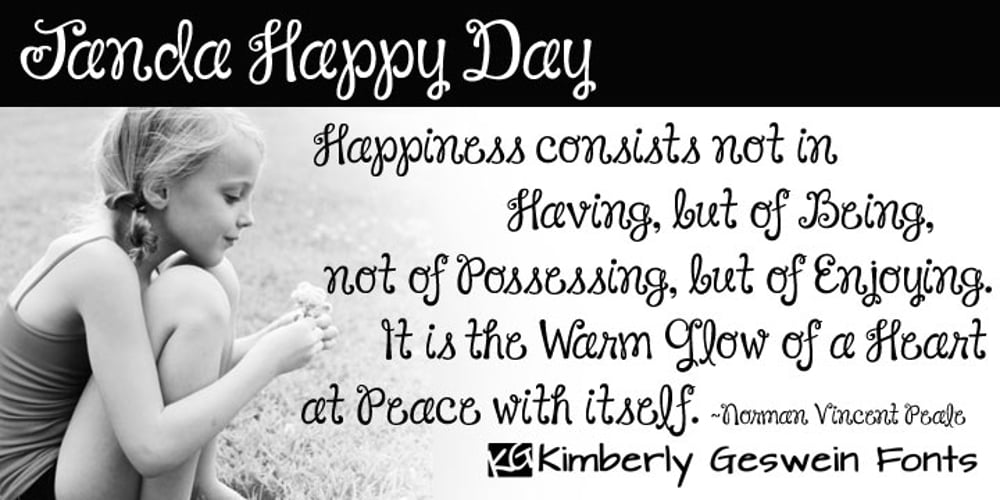
Janda Happy Day Font Family was designed by Kimberly Geswein and published by Kimberly Geswein. Janda Happy Day contains 1 styles and family package options. Hand-drawn playful lettering full of curls and whimsy. This is designed to be completely legible while still offering a fun flair to a finished project.